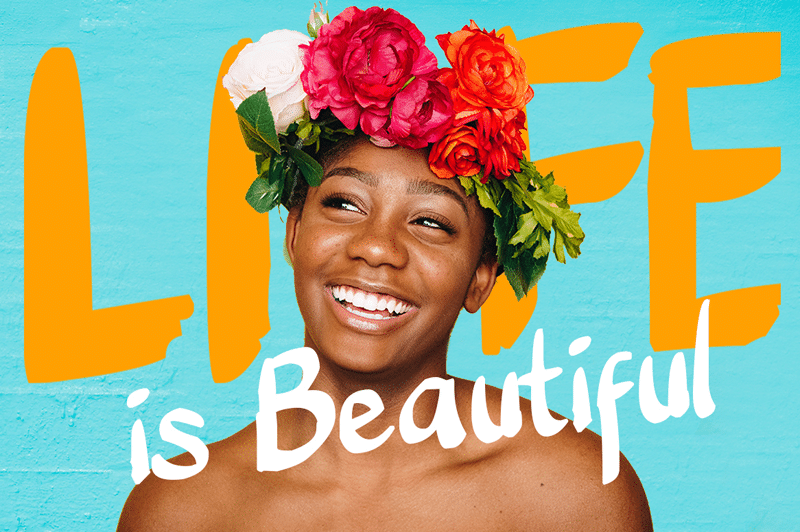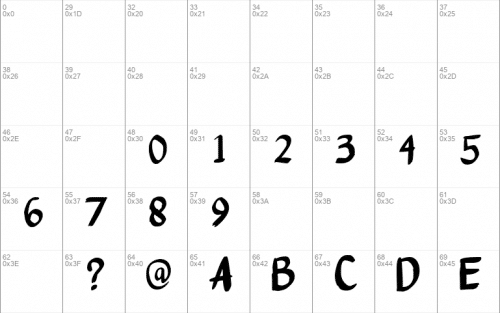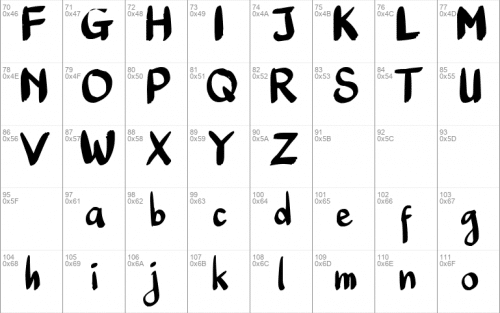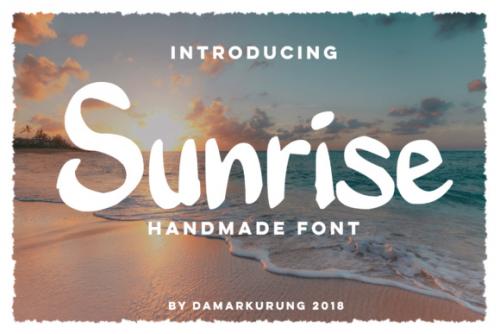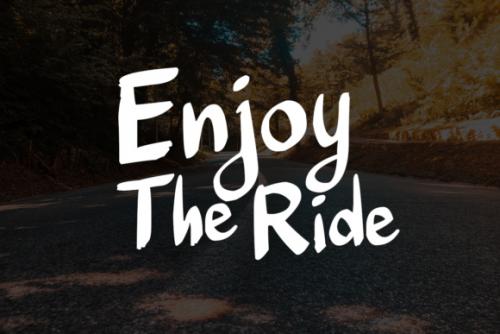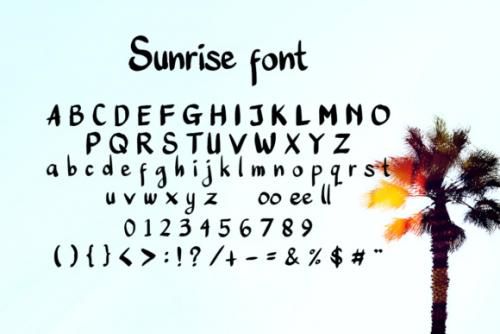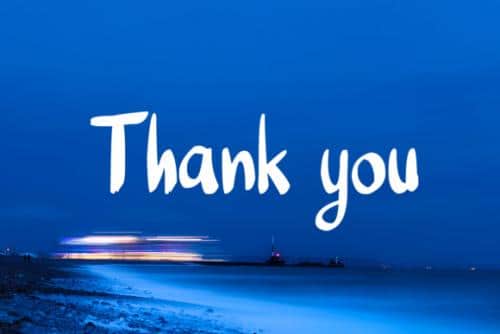
The Sunrise is a striking handwritten font. It has a bold style which can be used for various purposes such as: logos, magazines, cover albums, quotes, and much more